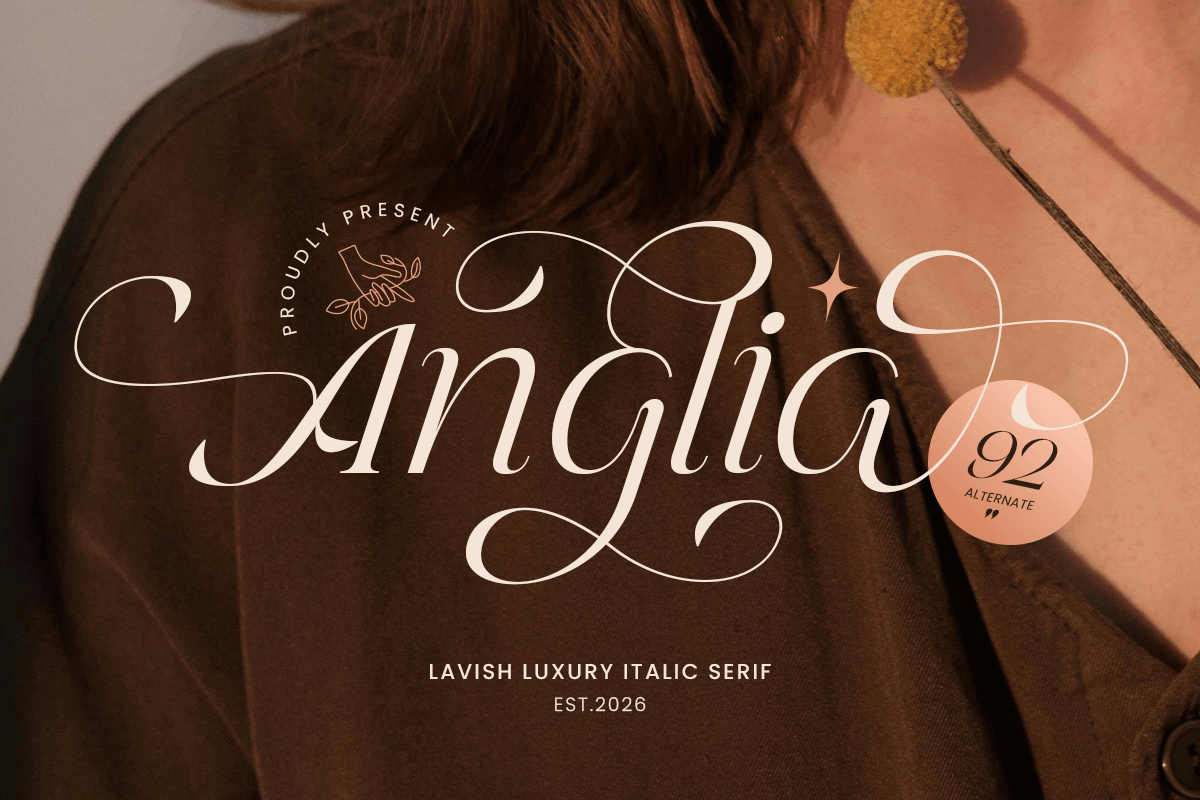
Anglia
-Lavish Modern Branding FontAnglia - Lavish Modern Branding Font
Anglia is a lavish luxury italic serif designed to express elegance with motion, refinement, and high-end character. Its italic posture brings a graceful, sophisticated flow—ideal for brands that want a premium feel with a distinctive signature tone.
Created for upscale typography, Anglia shines in luxury logos, wordmarks, fashion editorials, magazine headlines, packaging, labels, invitations, and premium website headers. The elegant serif details and stylish slant deliver a confident visual rhythm that feels exclusive while staying clean and readable.
Whether you’re building a couture brand identity, elevating beauty packaging, designing wedding stationery, or creating premium marketing visuals, Anglia provides a luxurious italic serif foundation that makes every design feel polished, expressive, and unforgettable.
Inspiration Behind Anglia:
ANGLIA is inspired by high-fashion editorial typography and classic italic serif elegance—where slanted forms convey prestige, personality, and refined luxury. The design focuses on graceful contrast and lavish rhythm to support premium branding, sophisticated headlines, and timeless upscale communication.
Anglia Font Features:
Lavish luxury italic serif letterforms with refined elegance
Perfect for premium branding, fashion, beauty, and upscale editorials
Signature italic flow for stylish headlines and wordmarks
OpenType features for polished, professional typesetting